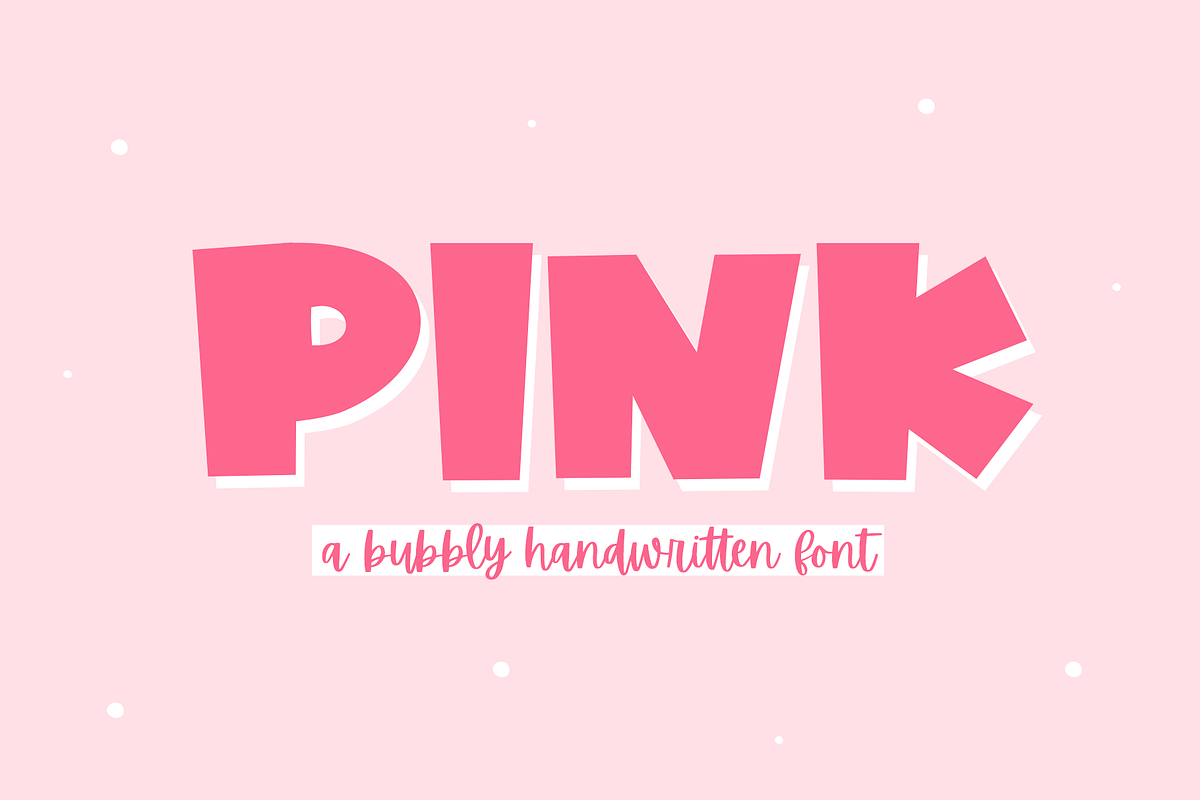
Pink - A Bold Handwritten Font Free Download is a fun, confident typeface that blends the charm of handwriting with a punchy, modern edge. With thick strokes and an expressive style, this font is perfect for social media graphics, logo design, bold product packaging, fashion branding, and eye-catching headlines.
Its playful yet strong character makes it ideal for projects that need personality and flair without sacrificing readability. Whether you're designing for a trendy lifestyle brand or crafting a standout quote graphic, Pink delivers energy, style, and a touch of attitude.